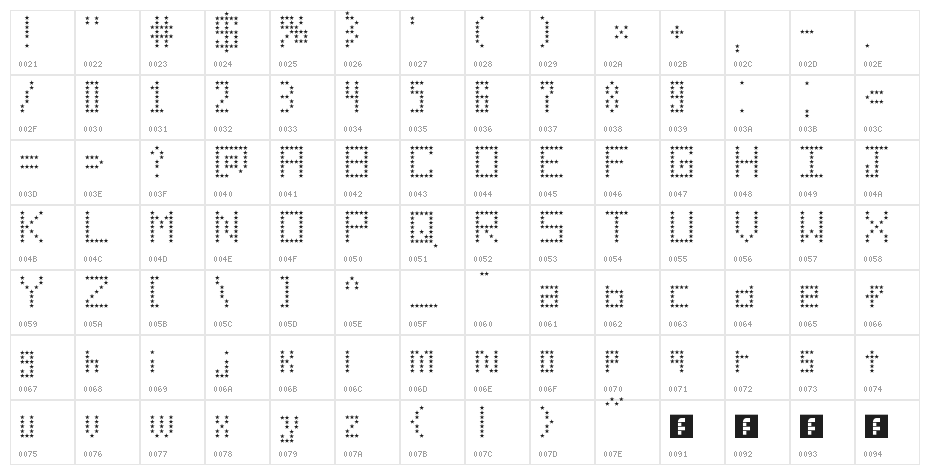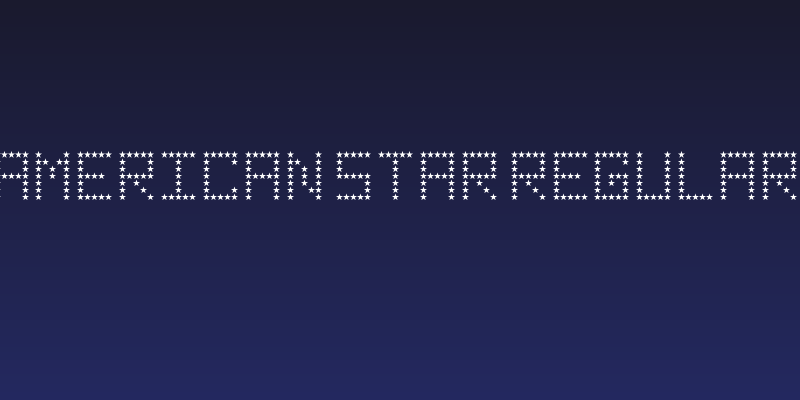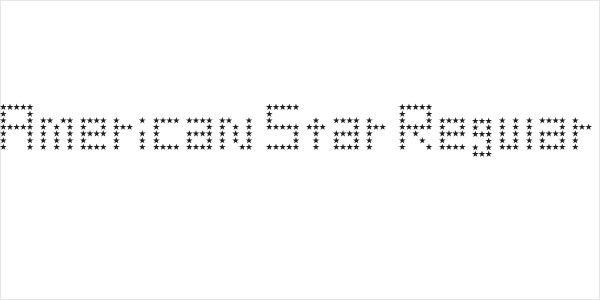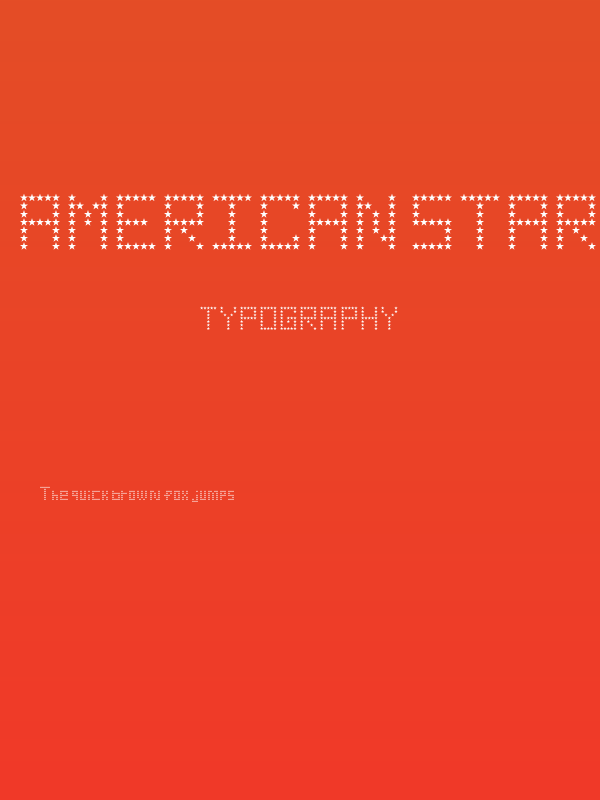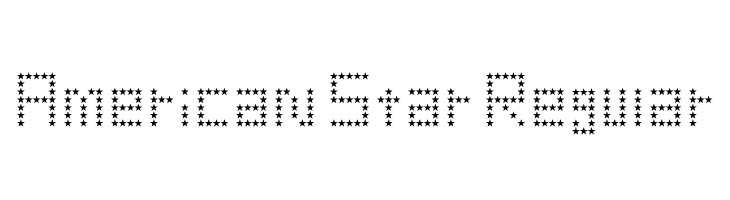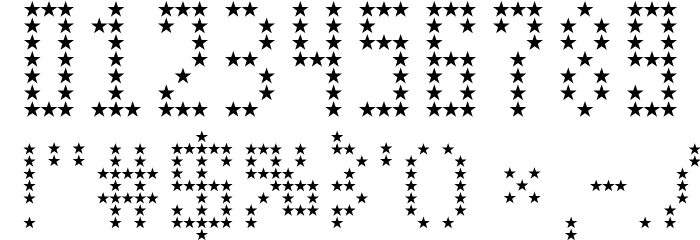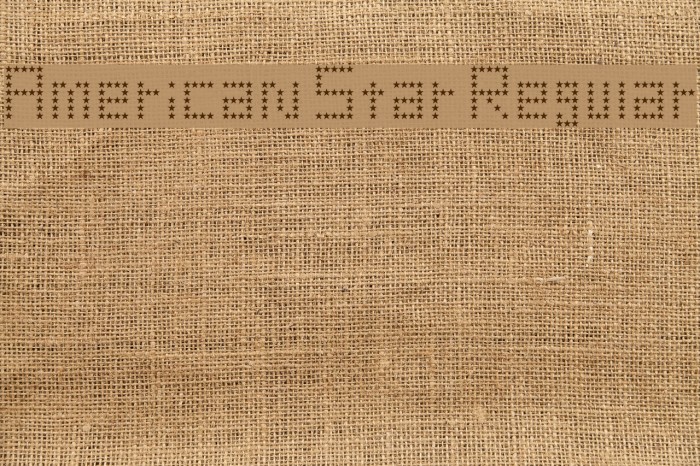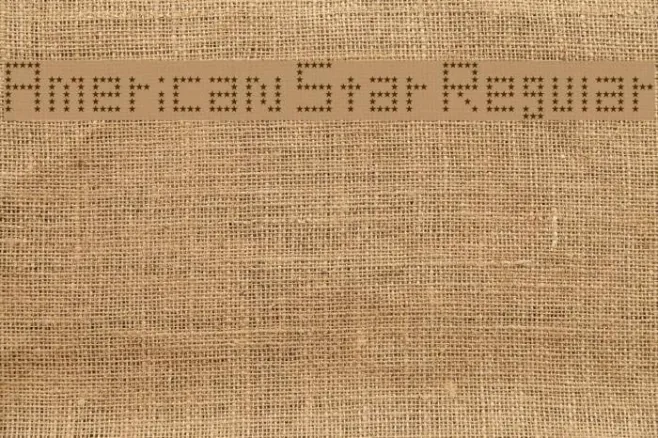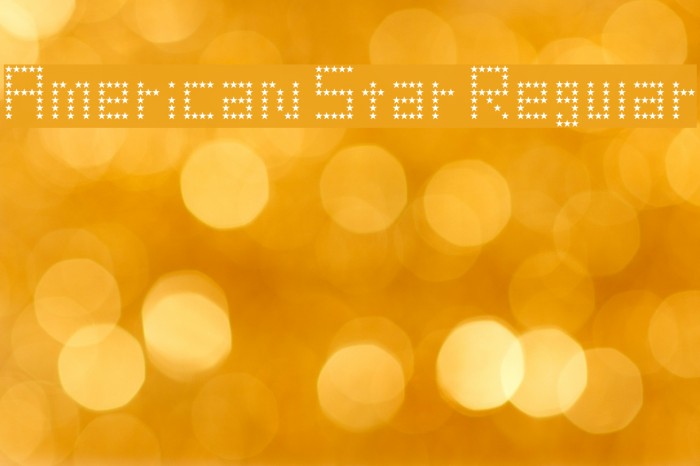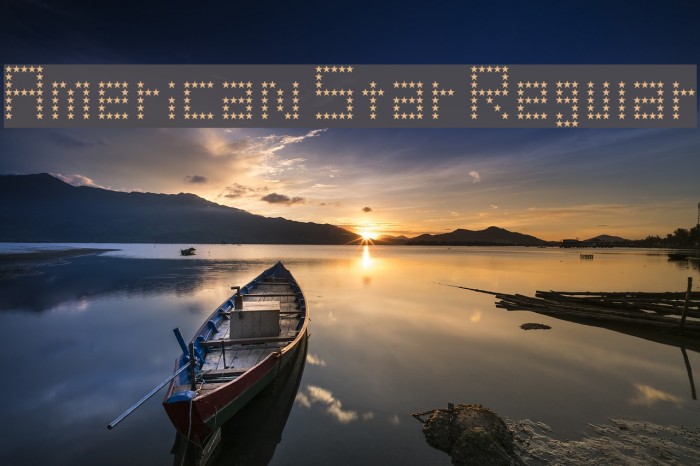
American Star Regular Font
American Star Regular Description
This decorative font is composed entirely of star shapes, creating a playful and eye-catching effect. Each character, from uppercase to lowercase, numbers, and special symbols, is meticulously crafted using a pattern of stars. The design is uniform across all characters, maintaining a consistent size and spacing of stars, which gives it a cohesive look. The font's unique style makes it ideal for projects that require a fun and whimsical touch. Its distinct appearance is perfect for themed events, festive occasions, or any design that aims to capture attention with a bold and unconventional style.
| Proposed Projects | Ideal for party invitations, festive banners, children's book covers, or any project needing a whimsical touch. |